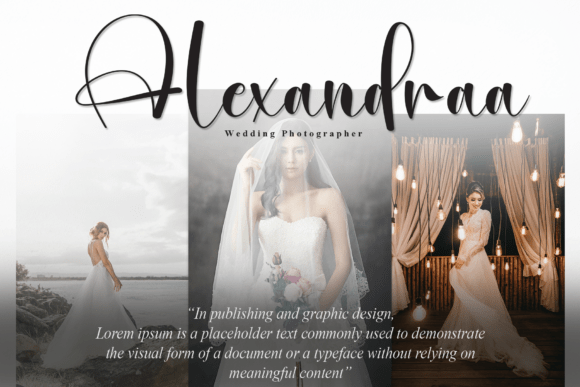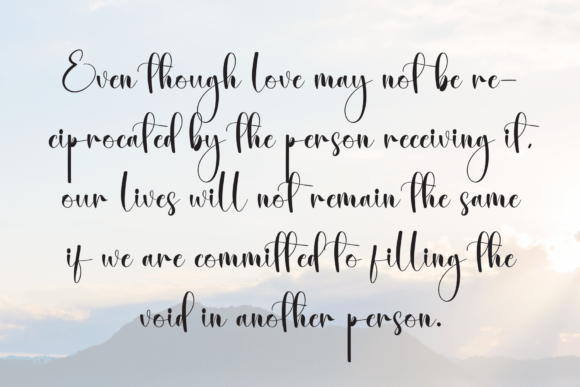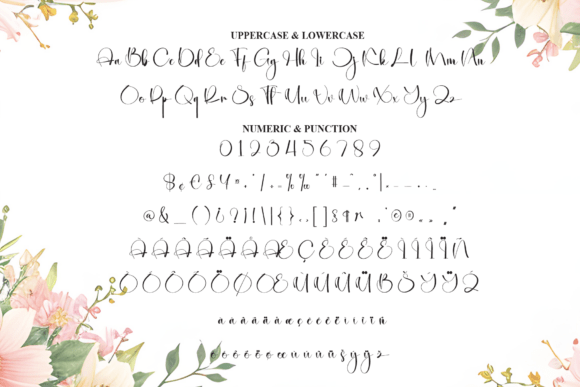
Introduction to Moutley Font
Have you ever been working on a creative project, pouring your heart and soul into the design, and then – the perfect font comes along and elevates your entire vision? That’s exactly what happened to many designers when they discovered the Moutley Font. This sophisticated handwritten script font effortlessly blends modern flair with timeless elegance, making it a valuable resource for designers looking to add a touch of luxury to their work.
| 👤 Author | Creativewhitee |
Whether you’re crafting bespoke wedding stationery, designing an upscale brand identity, or creating delicate social media content, the Moutley Font offers a professional and artistic aesthetic that’s sure to impress. With its high-quality design and versatility, it’s no wonder that this font has become a go-to design resource for creatives around the world.
Key Features of Moutley Font
- High-quality, professional font design ideal for creative projects, available for free download.
- Comes with a transparent background, allowing for easy customization and versatility in design.
- Features a unique, elegant design that can be used in a variety of contexts, from branding to editorial content.
- Designed with a high resolution (up to 300 DPI) for crisp, clear typography in both print and digital applications.
- Perfect for designers and artists looking for a reliable, high-quality design resource for their creative projects.
Honest Review: Moutley Font
As a designer, I’m always on the lookout for high-quality design resources that can elevate my creative projects. Recently, I stumbled upon the Moutley Font, and I’m excited to share my thoughts on this free download.
- Unique and stylish design: The Moutley Font boasts a distinctive, hand-drawn aesthetic that sets it apart from more generic fonts.
- High-quality glyphs: The font features a wide range of glyphs, including uppercase and lowercase letters, numbers, and punctuation marks.
- Transparent background: The font’s transparent background makes it easy to use on various design elements, from logos to graphics.
- Limited font styles: The Moutley Font comes in only one style, which may limit its versatility for certain design projects.
- No bold or italic options: The font doesn’t offer bold or italic versions, which may make it less suitable for certain design applications.
Overall, I’m impressed with the Moutley Font’s unique design and high-quality glyphs. While it may have some limitations, it’s a great addition to any designer’s toolkit, especially for creative projects that require a distinctive look.
Tips for Getting the Most Out of Moutley Font
To get the most out of Moutley Font, use it in conjunction with other design elements such as graphics, images, or textures. Experiment with different font sizes, colors, and styles to create unique and eye-catching designs. With practice, you can master the art of using Moutley Font to elevate your creative project.
Moutley Font is ideal for use in various design applications, including social media graphics, business cards, logos, presentations, documents, and reports. Its high-quality design and transparent background make it a versatile design resource for creative projects.